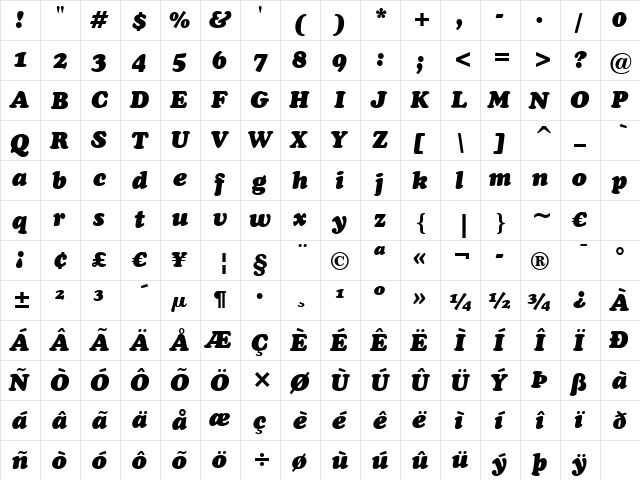
Cooper BlkIt BT Black Italic Font Preview
Cooper BlkIt BT Black Italic
Design Context for Cooper BlkIt BT Typeface
Cooper BlkIt BT takes a measured approach to typography — its balanced proportions and neutral character make it a reliable workhorse for both digital and print work. The dynamic lean of this cut emphasises speed and emphasis in any layout.